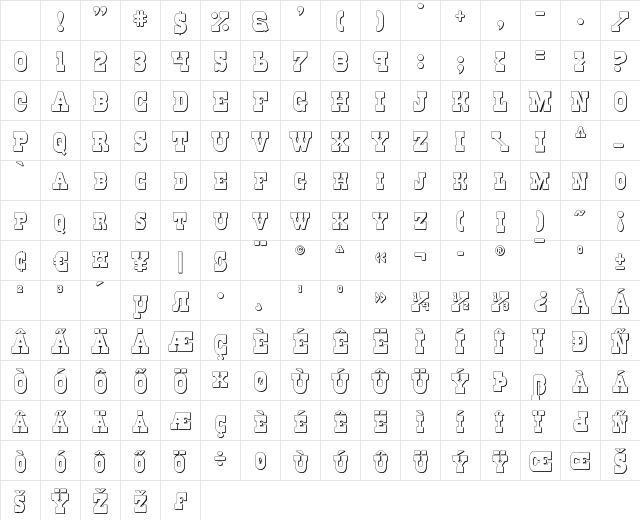
Complete Regulators Shadow glyph index. Displaying only characters natively supported by Regulators Shadow font.
Regulators is built around its visual character rather than neutral utility - its distinctive forms are designed to make an impression at display sizes.
Font Pairing: Pair with a clean neutral sans-serif for body copy to let Regulators's character lead without overwhelming the composition.
Pro Tip: Use Regulators exclusively at display sizes - it was designed to be seen, not read at length. Let a neutral companion handle body copy.